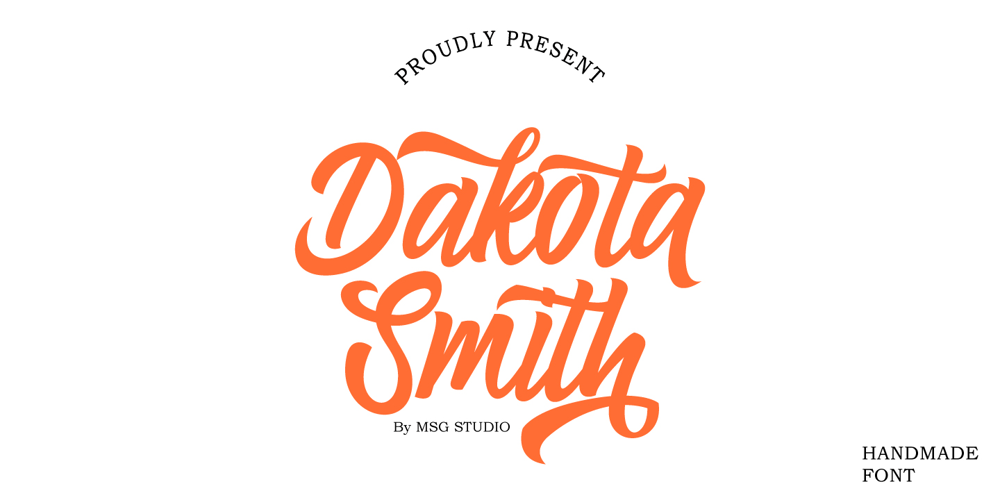
Dakota Smith Font Family was designed by Fajriadi Fajriadi, Fajriadi and published by Masinong Studio. Dakota Smith contains 1 styles and family package options. Dakota Smith Inspired by Retro style and combination with Hand Lettering style. I’m made with personality touch every single curve. I hope this can make inspire you from your work. and a very bouncy baseline It has a perfectly paired complimentary marker font , and a super handy set of bonus Swash. Ideal for logos, handwritten quotes, product packaging, header, poster, merchandise, social media & greeting cards. Features Basic Latin A-Z and a-z Numbers Symbols Stylistic Set Ligature PUA Encode Multilanguage Support To enable the OpenType Stylistic alternates, you need a program that supports OpenType features such as Adobe Illustrator CS, Adobe Indesign & CorelDraw X6-X7.There are additional ways to access alternates, using Character Map (Windows), Nexus Font (Windows), Font Book (Mac) or a software program such as PopChar (for Windows and Mac).